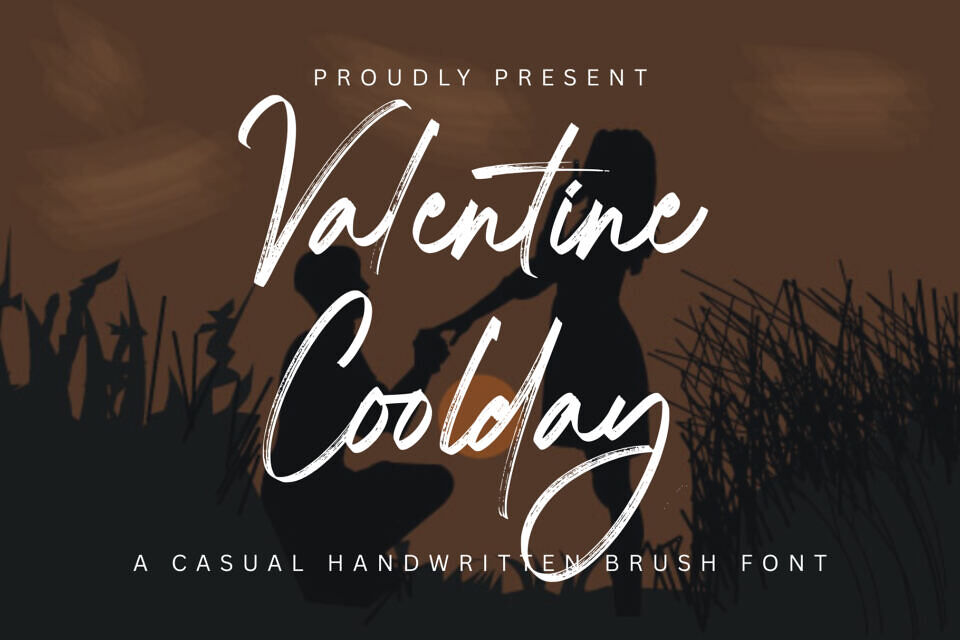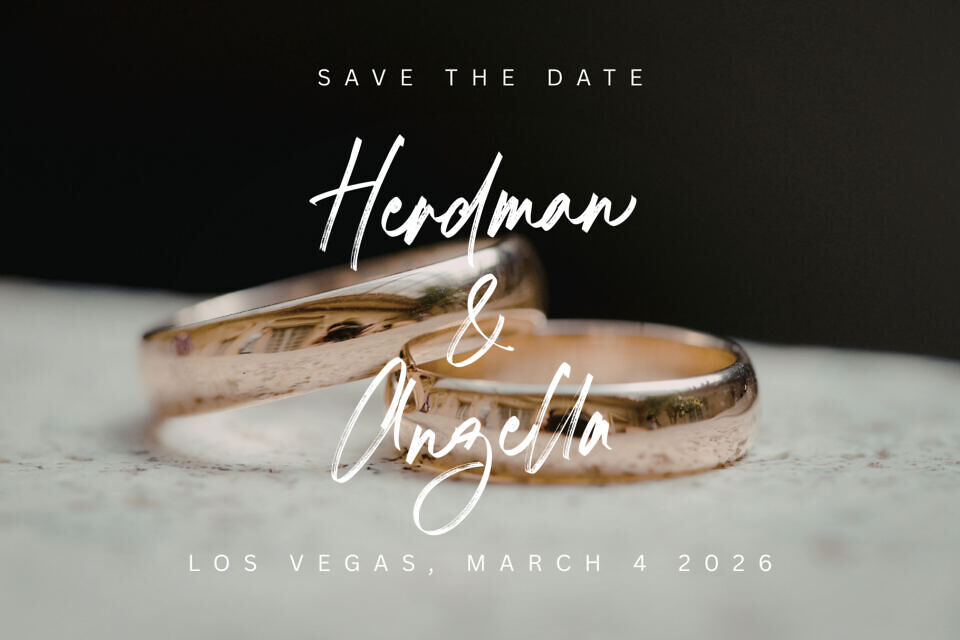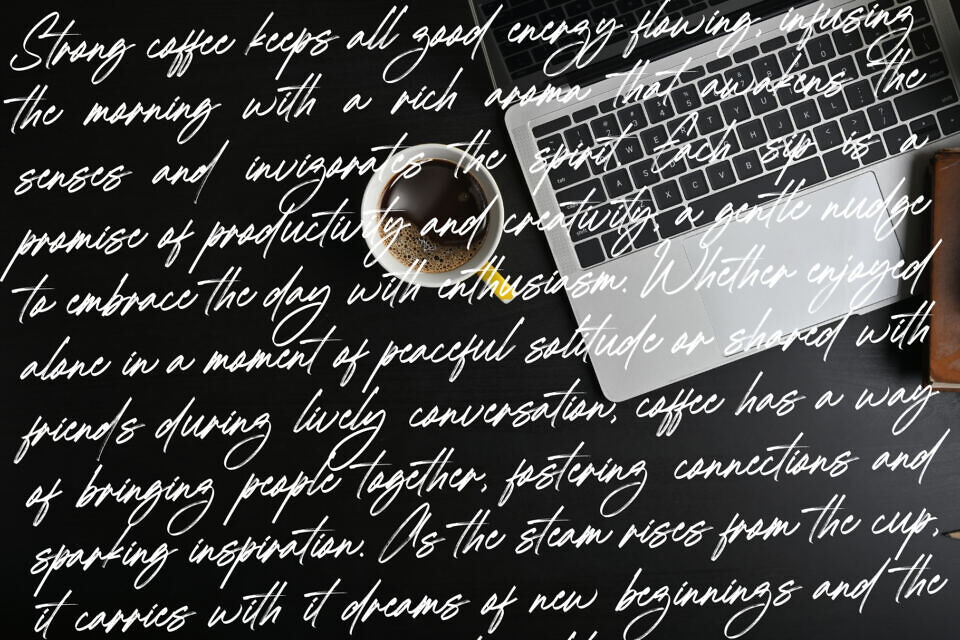
Valentine Coolday font is a charming blend of casual and whimsical with a touch of contemporary romance. This handwritten brush font dances across the page with smooth strokes and sophisticated ligatures, weaving a tapestry of warmth and expressiveness.
Ideal for crafting heartfelt Valentine’s creations, composing amorous quotes or adding a dash of whimsy to branding and invitations. Whether married with minimalist designs or paired with stylish layouts, Valentine Coolday is set to enhance your creative typography projects, social media posts and posters with its innate flair and fluidity.